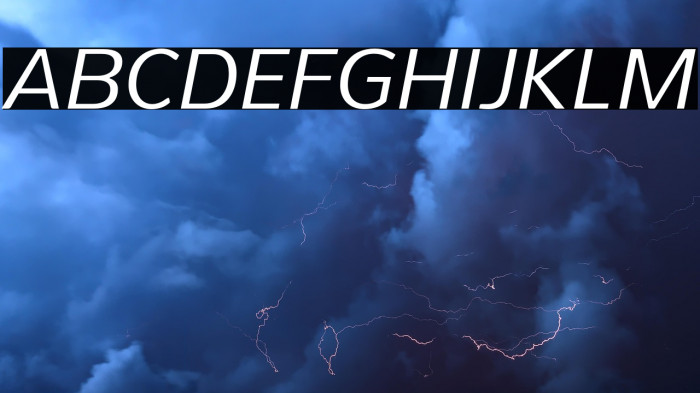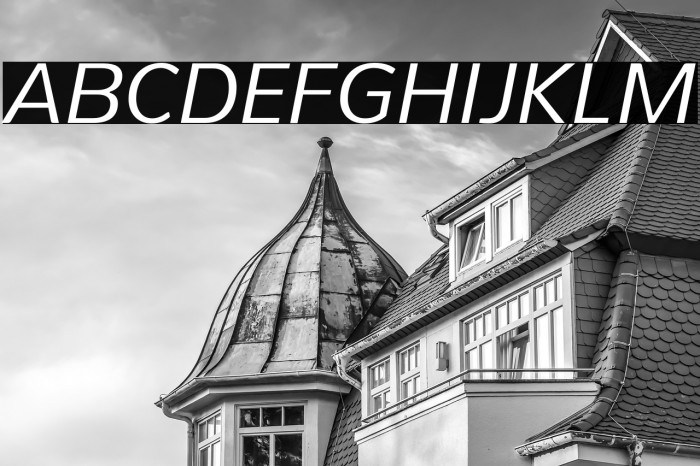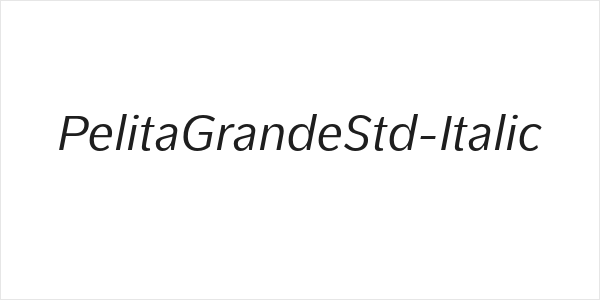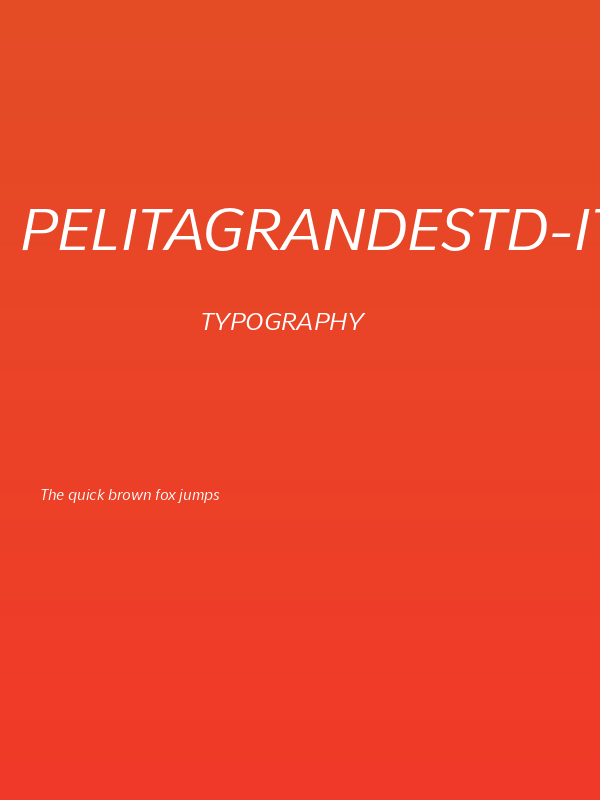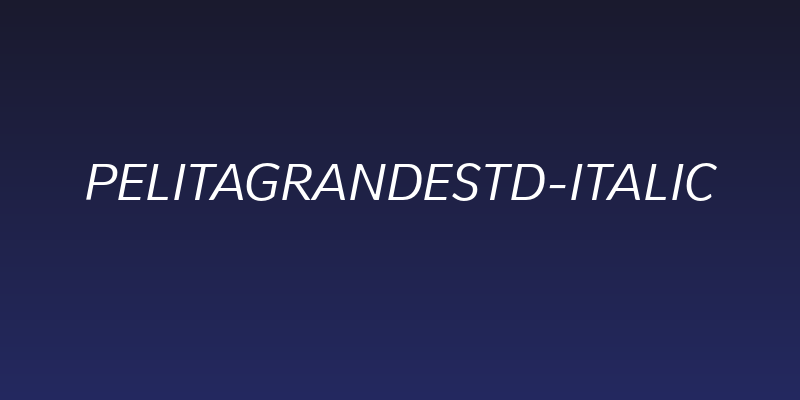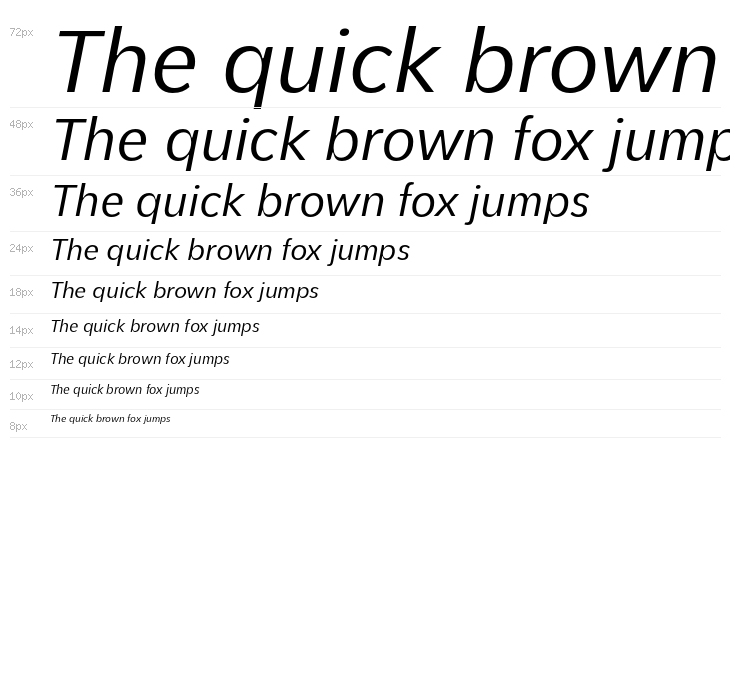
PelitaGrandeStd-Italic Font
PelitaGrandeStd-Italic Description
This font features a sleek and modern italic style, characterized by its clean lines and smooth curves. The uppercase letters are slightly elongated, giving a sense of elegance and sophistication. The lowercase letters maintain a consistent flow, enhancing readability while retaining a stylish appearance. Numbers are clear and well-proportioned, making them suitable for various applications. Special characters are distinct and harmonize well with the overall design, ensuring versatility in usage. The font's italic nature adds a dynamic and contemporary feel, making it ideal for creative and professional projects.